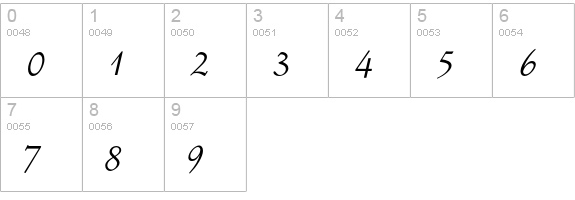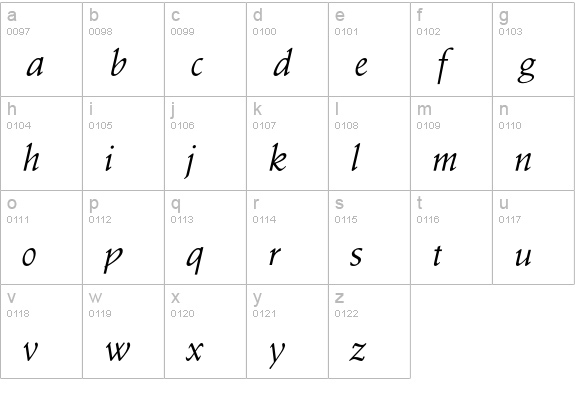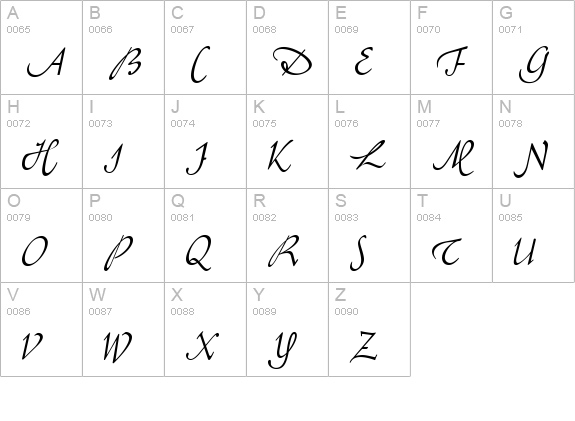
OPTISchneidler-Swash Font Details
The OPTISchneidler-Swash font is a beautifully crafted typeface that exudes elegance and sophistication. Its intricate swashes and delicate curves make it a perfect choice for adding a touch of class to any design project. Whether you're creating wedding invitations, branding materials, or elegant stationery, this font is sure to make a lasting impression. What sets OPTISchneidler-Swash apart is not only its stunning aesthetics but also its versatility. It can be used for both headlines and body text, making it a versatile option for a wide range of design applications. The font's timeless appeal ensures that it will never go out of style, making it a valuable addition to any designer's toolkit. Best of all, OPTISchneidler-Swash is available for free download at FontsMarket.com. This means you can start using this exquisite font in your projects right away, without having to worry about any additional costs. Don't miss out on the opportunity to enhance your designs with the beauty and sophistication of OPTISchneidler-Swash font. Download it today and elevate your creations to a whole new level.